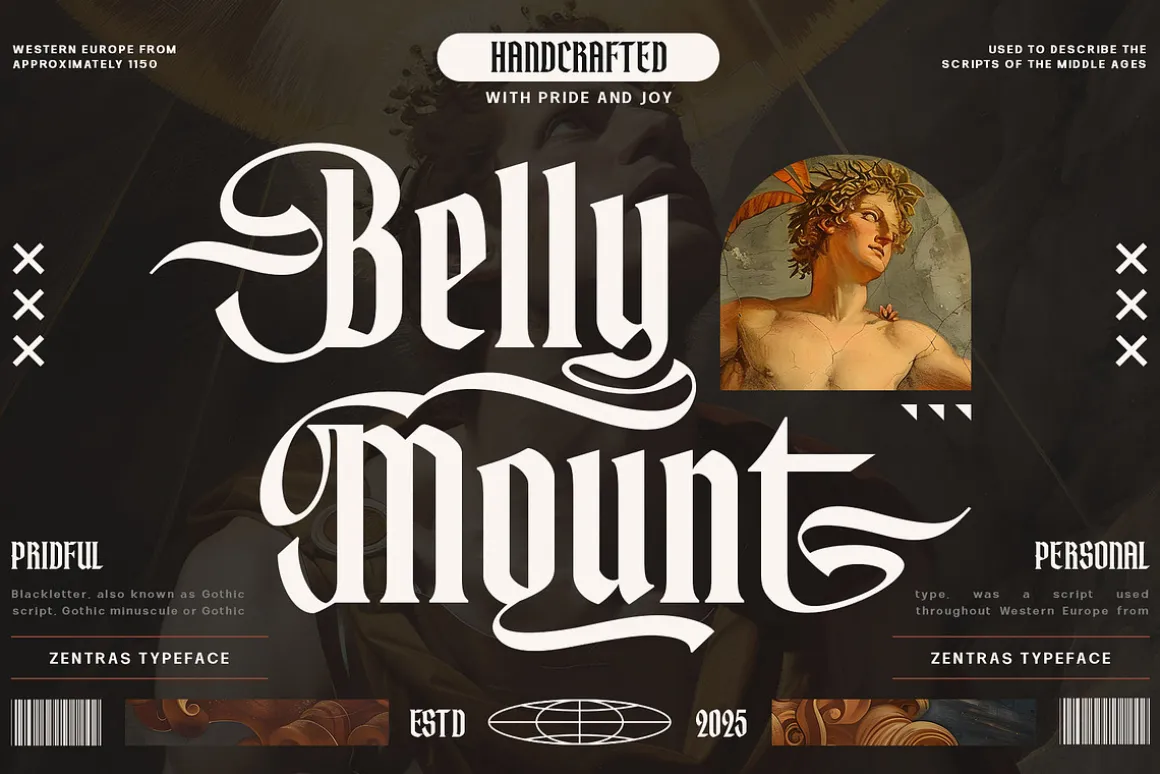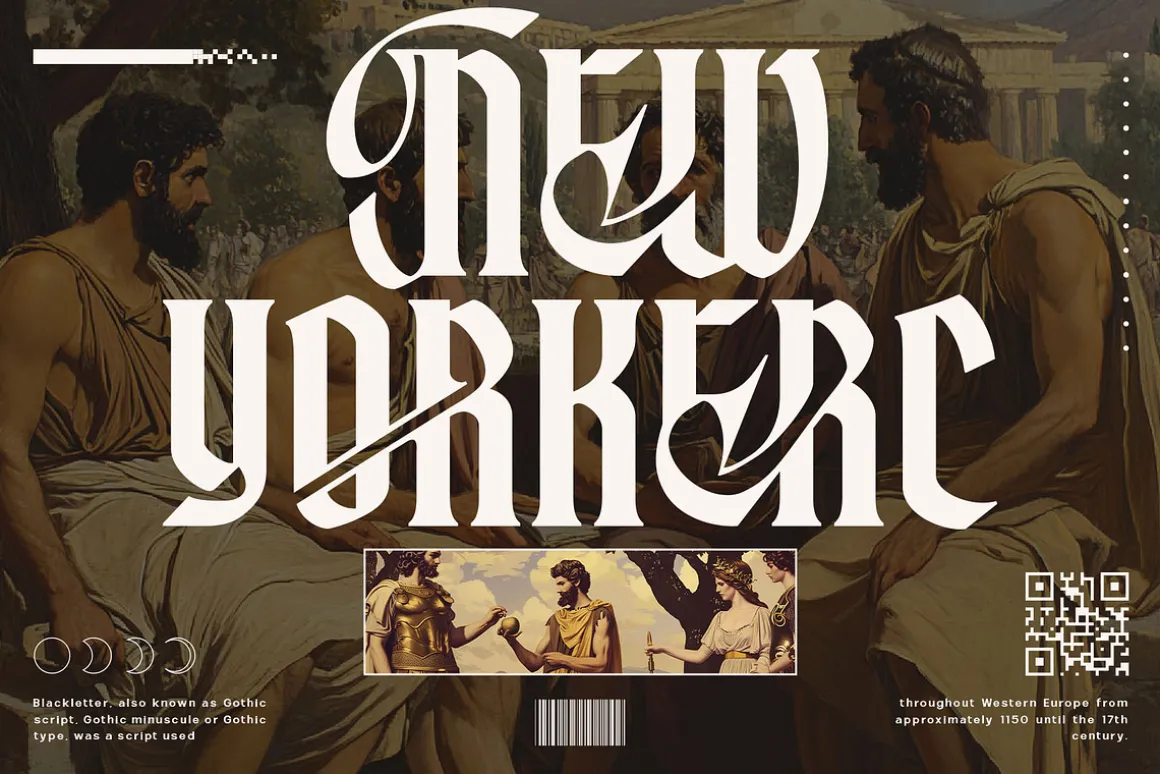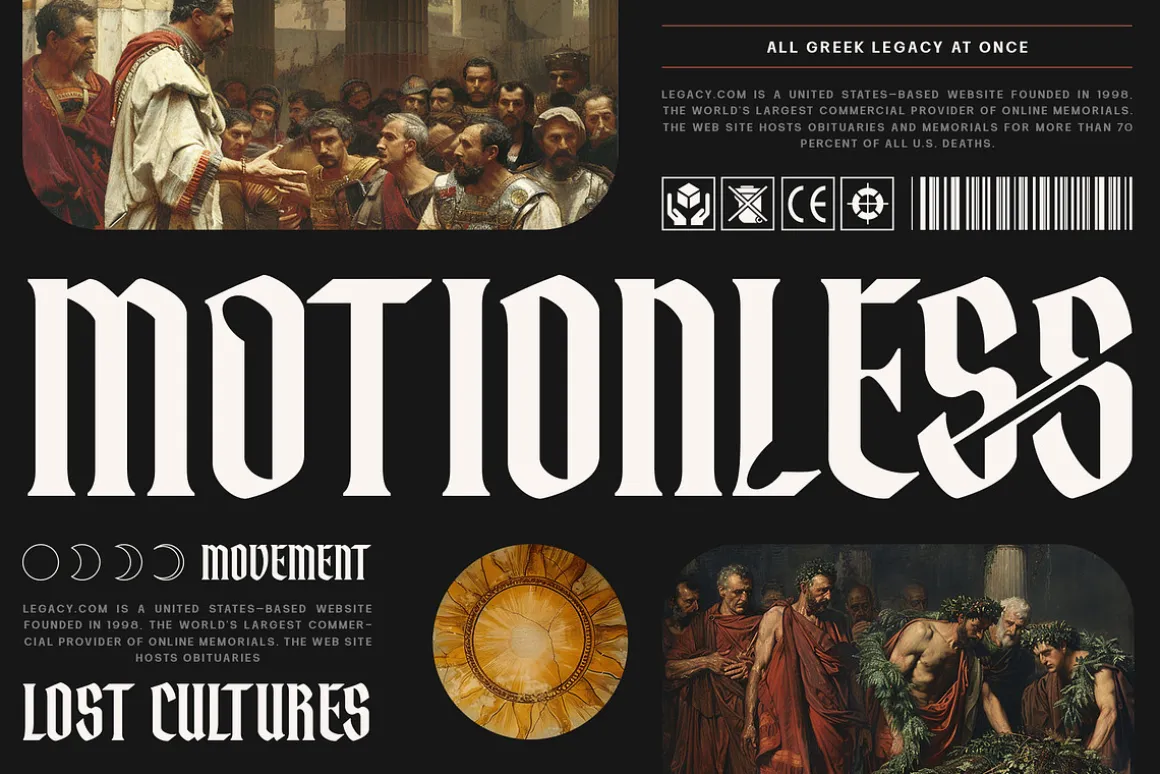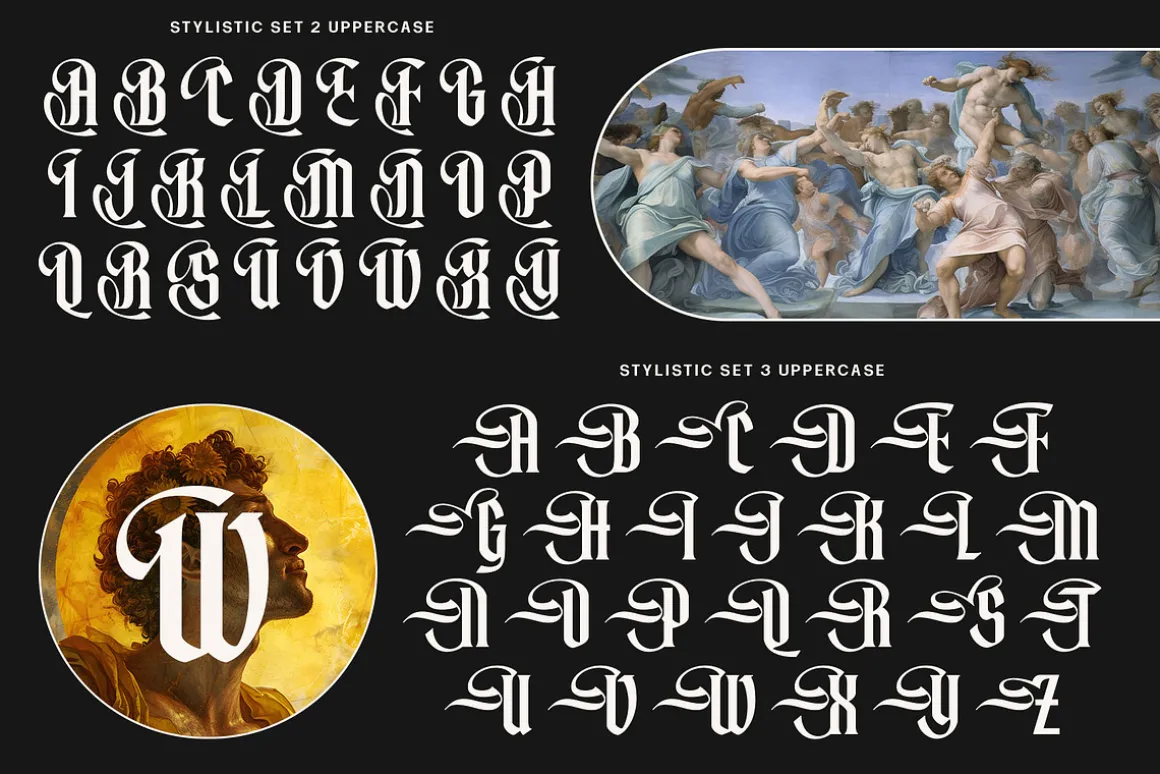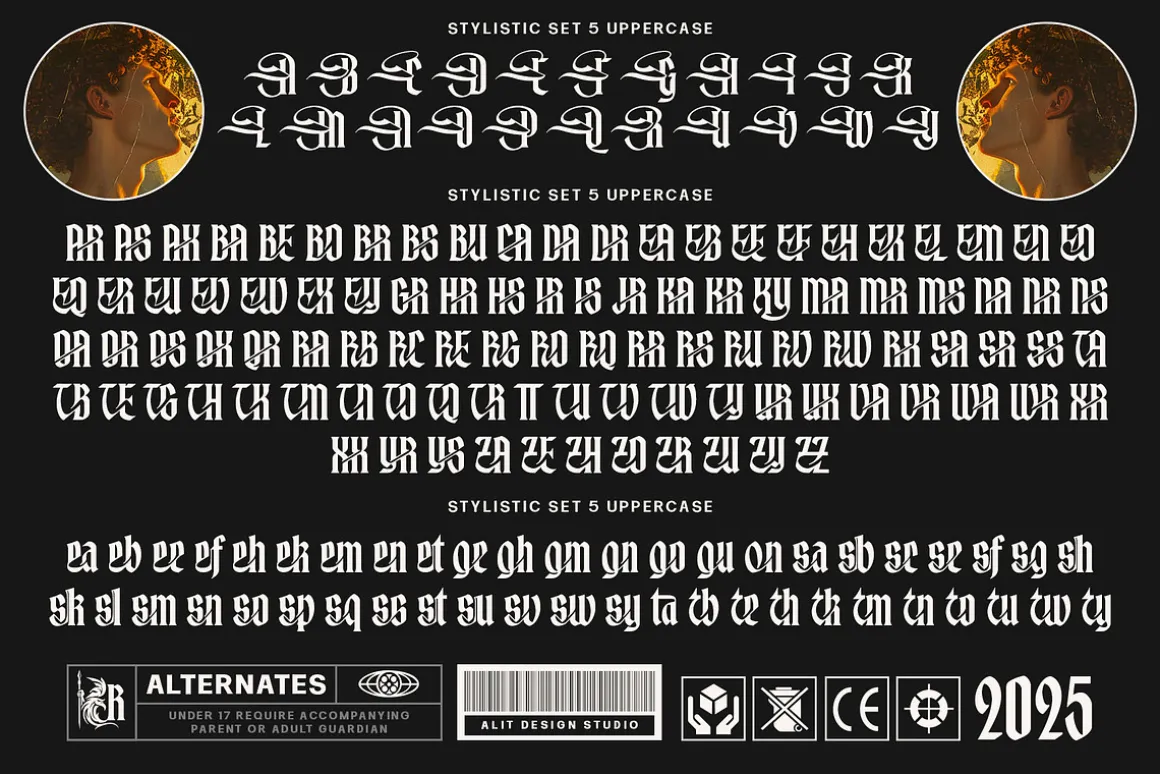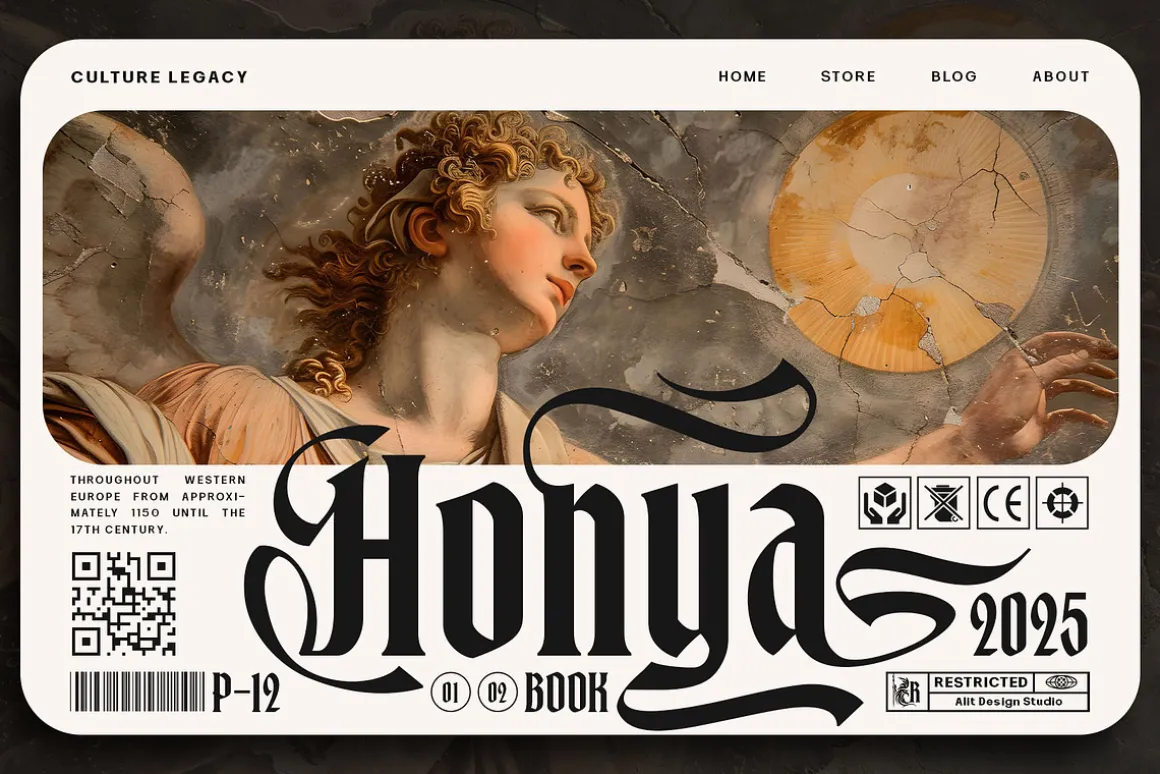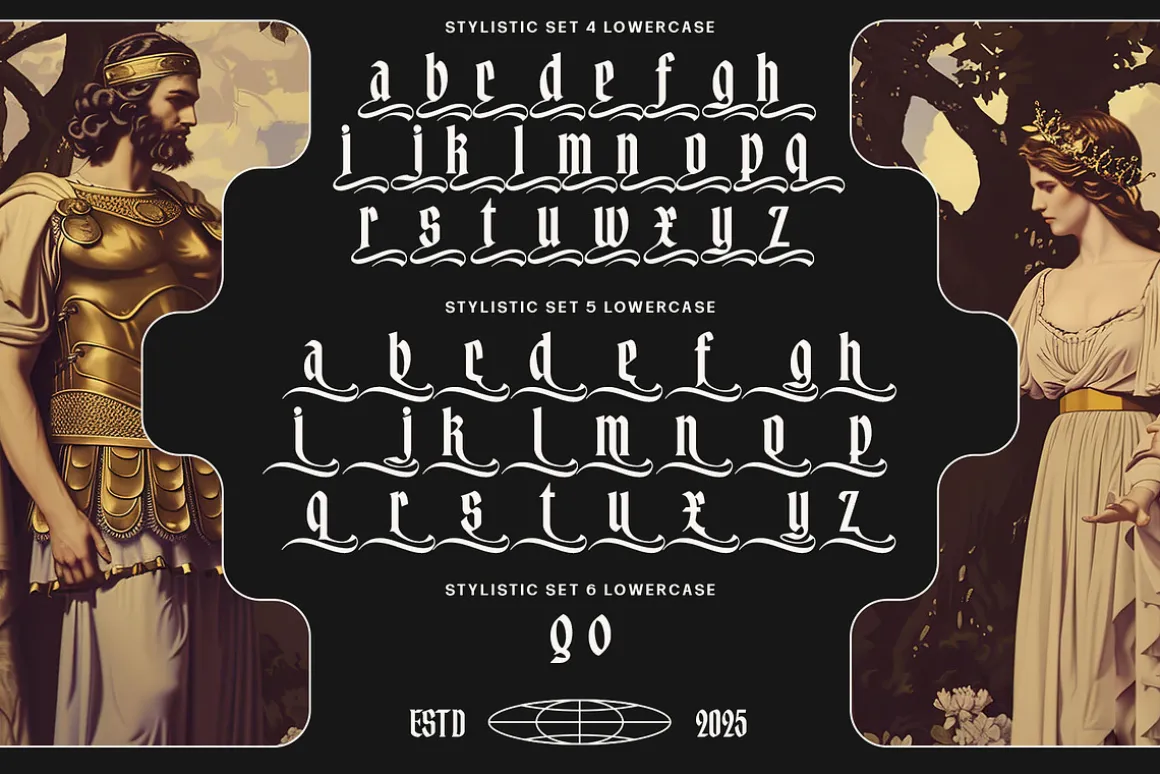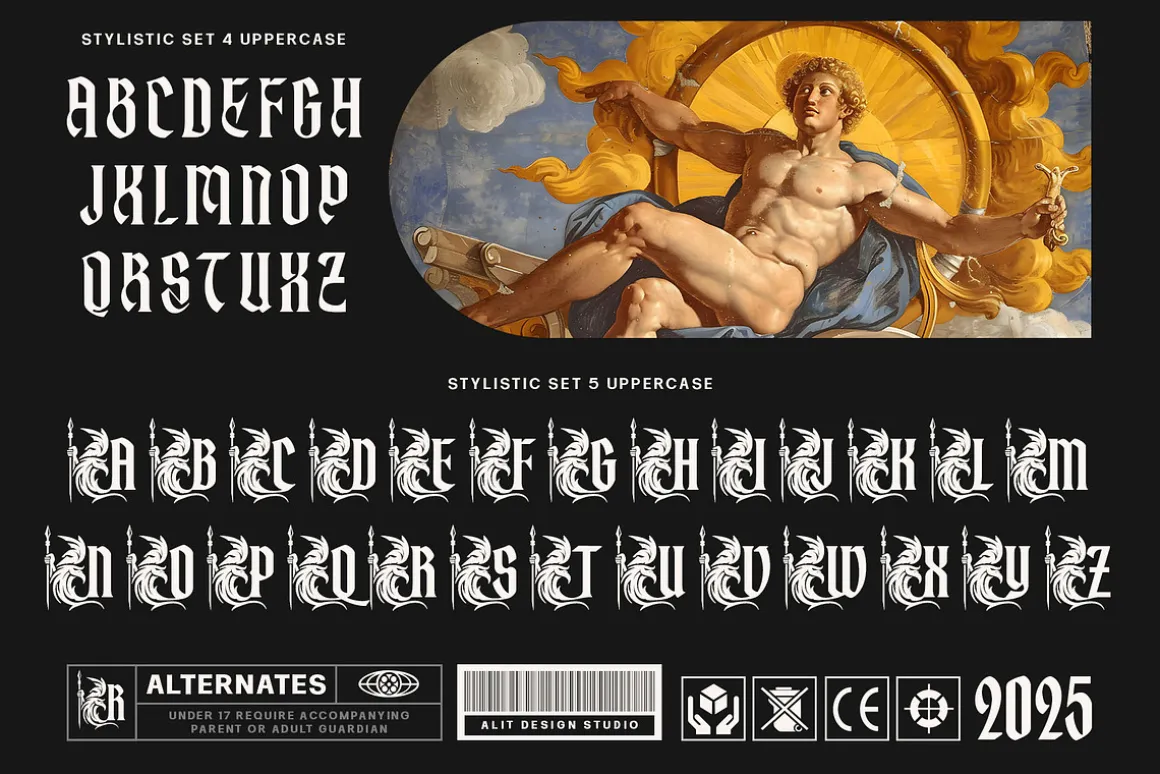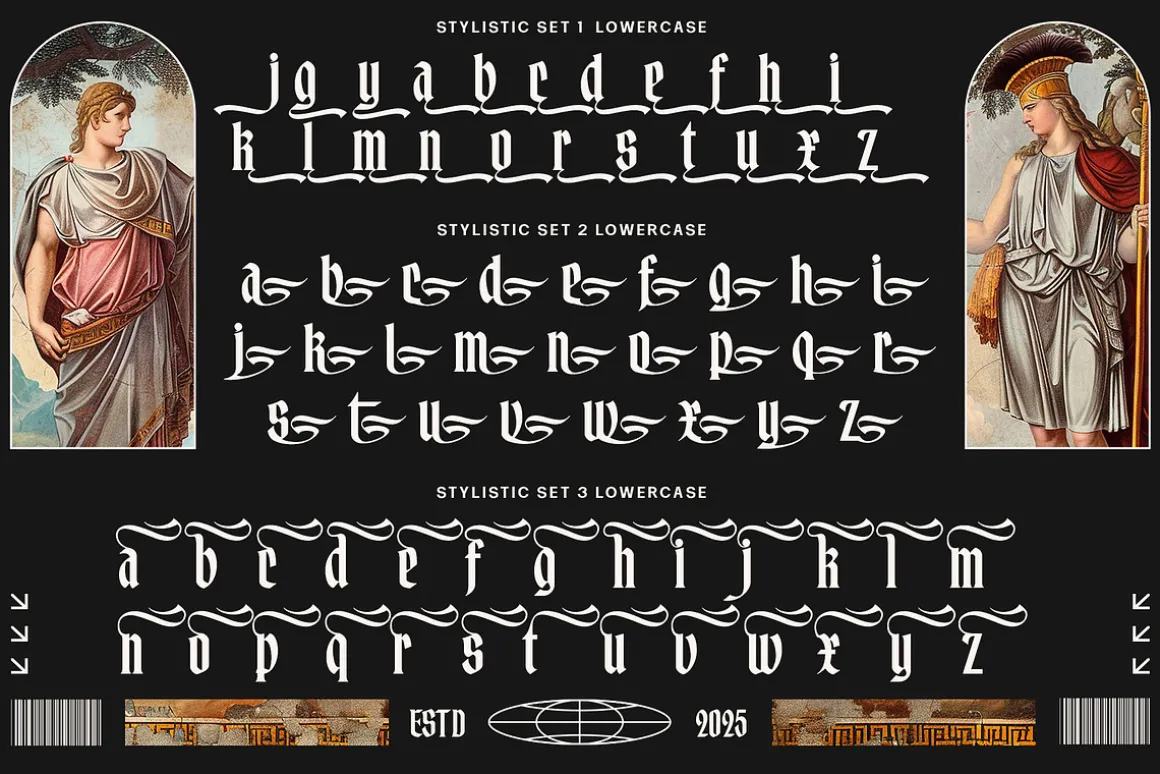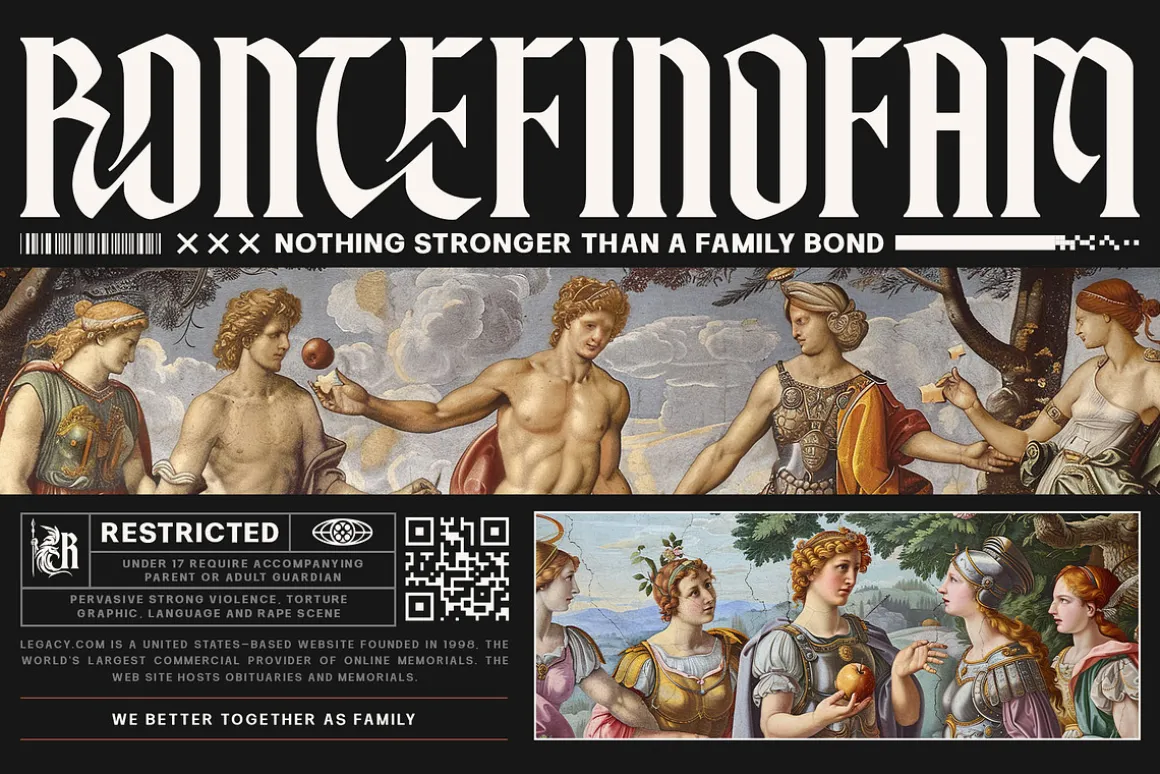
Zentras – Modern Blackletter Typeface
Introducing Zentras, a bold and elegant blackletter typeface that fuses the spirit of Roman heroism with modern streetwear sophistication. Designed to make a powerful impact, Zentras combines sharp, refined serifs with the strong, structured lines of traditional blackletter for a truly unique typeface that stands out in any creative project.
Inspired by classical European scripts from the Middle Ages and the noble imagery of Roman warriors, Zentras brings a fresh and luxurious edge to headlines, logos, apparel, posters, and editorial layouts. Whether you’re crafting a premium fashion label or an underground music brand, Zentras delivers both legacy and attitude in one powerful typeface.
- 892 Glyphs – Extensive Latin language support
- Uppercase & Lowercase
- Alternates & Ligatures for unique typographic flair
- Numbers & Punctuation
- Multilingual Support
Perfect For:
- Streetwear & Apparel Branding
- Music Covers & Posters
- Editorial Headlines
- Tattoo & Gothic Designs
- Luxury Packaging
- Film Titles & Promotional Art
Zentras is crafted to evoke strength, elegance, and a hint of rebellion. If you’re looking for a typeface that feels both ancient and modern, regal and raw, Zentras is your perfect design weapon.